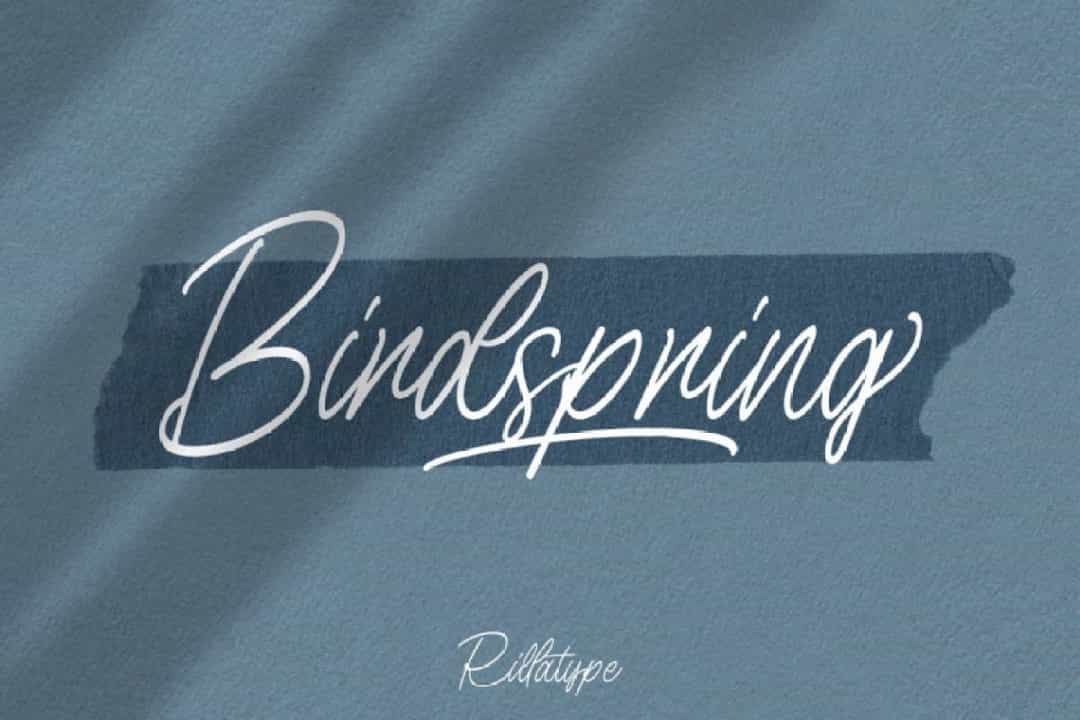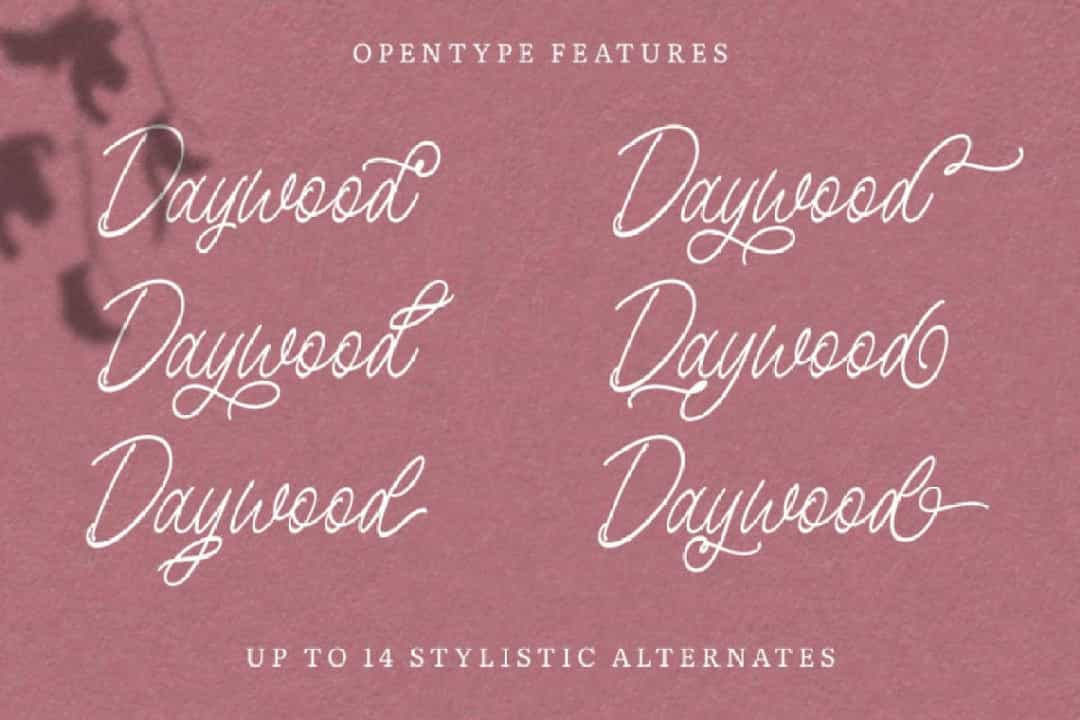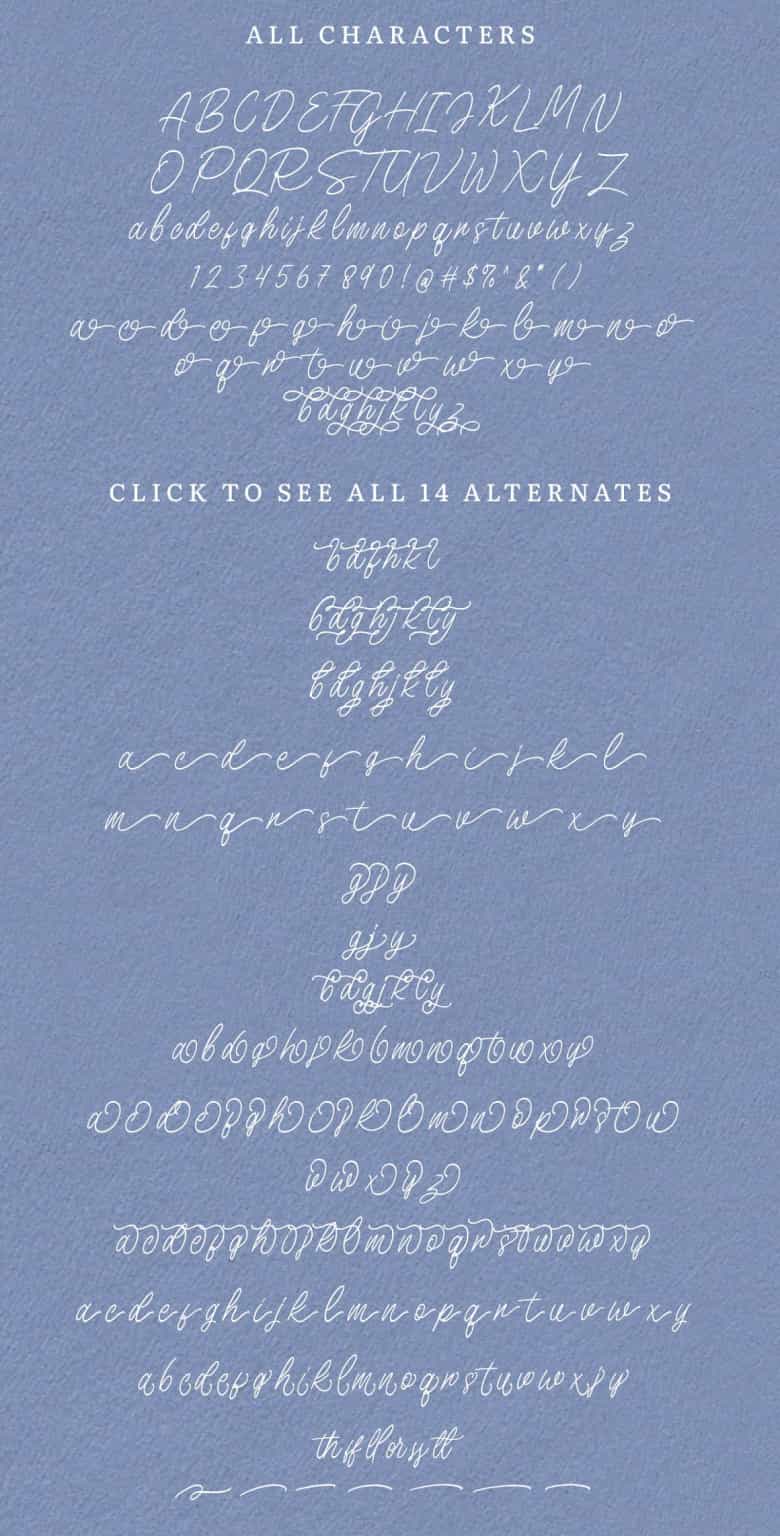
Birdspring font is an exquisite font that fulfills all your needs and is perfect to be used for wedding invitation packaging and the invitations themselves with its distinctive characteristics. This font has built-in fourteen ligatures, which enhances on the appearance of the word when writing them out.